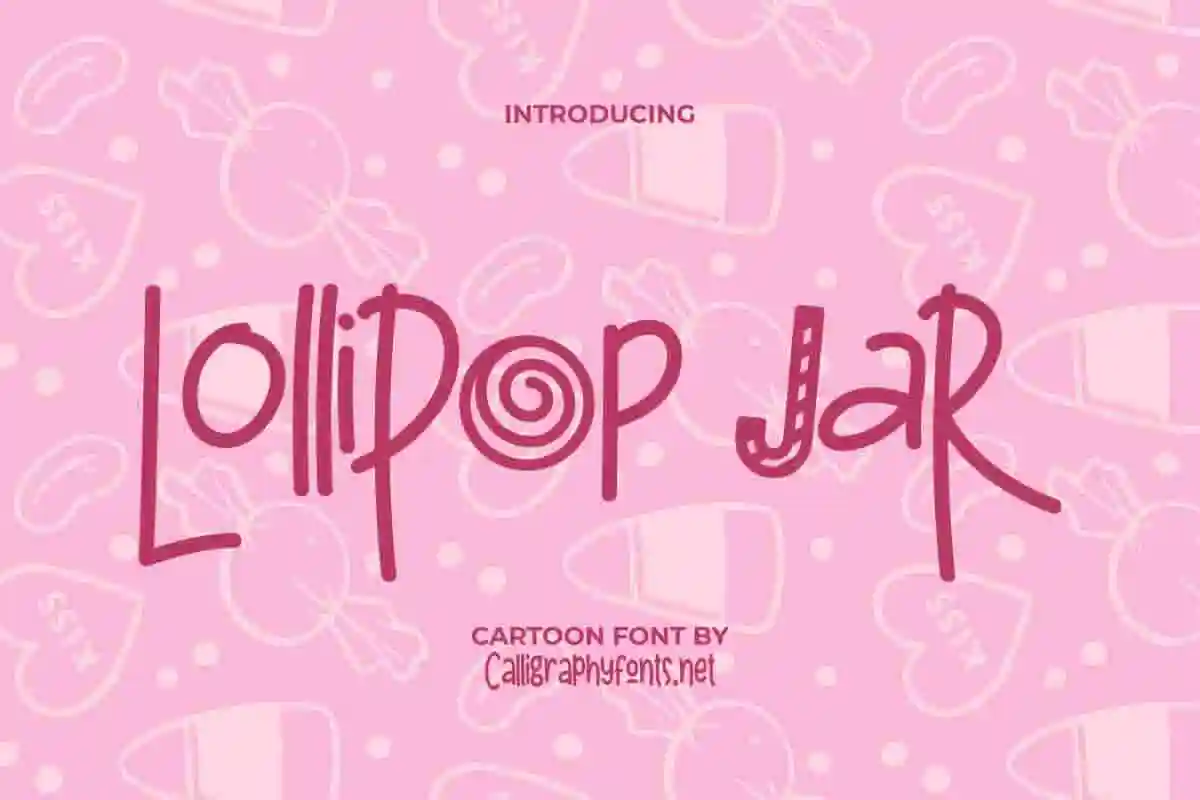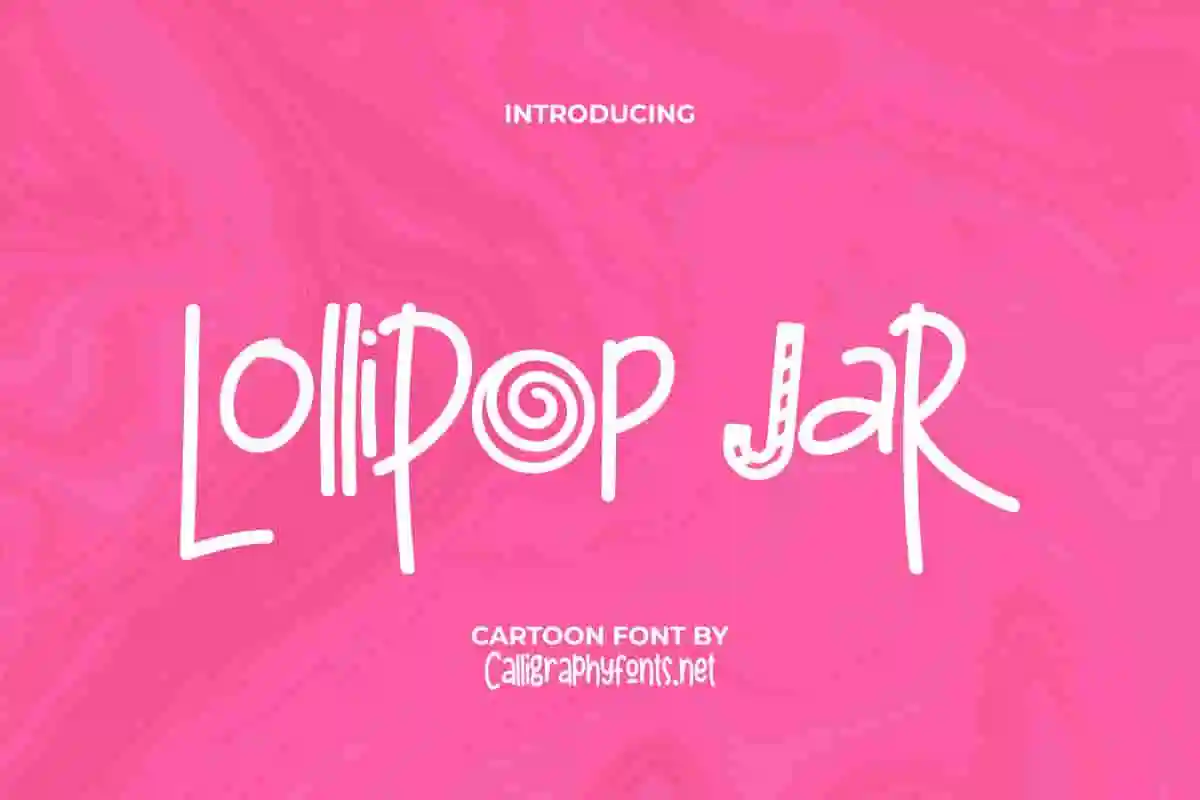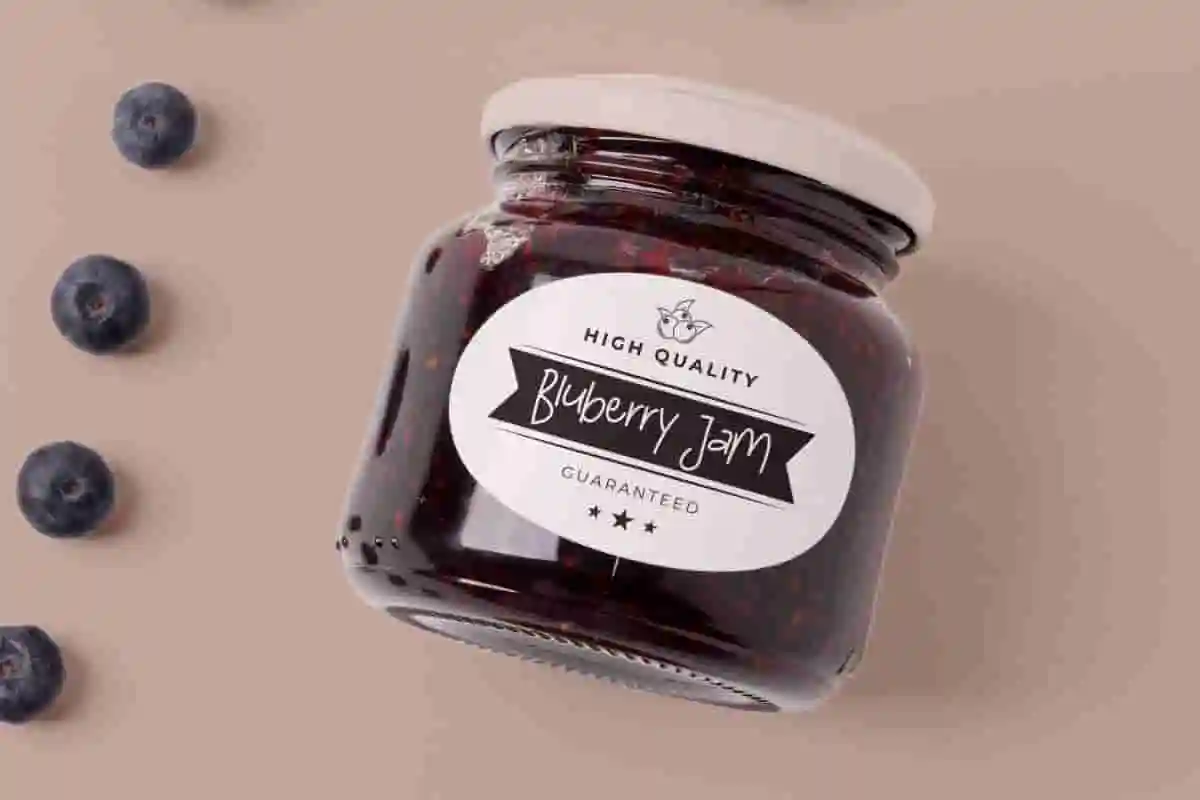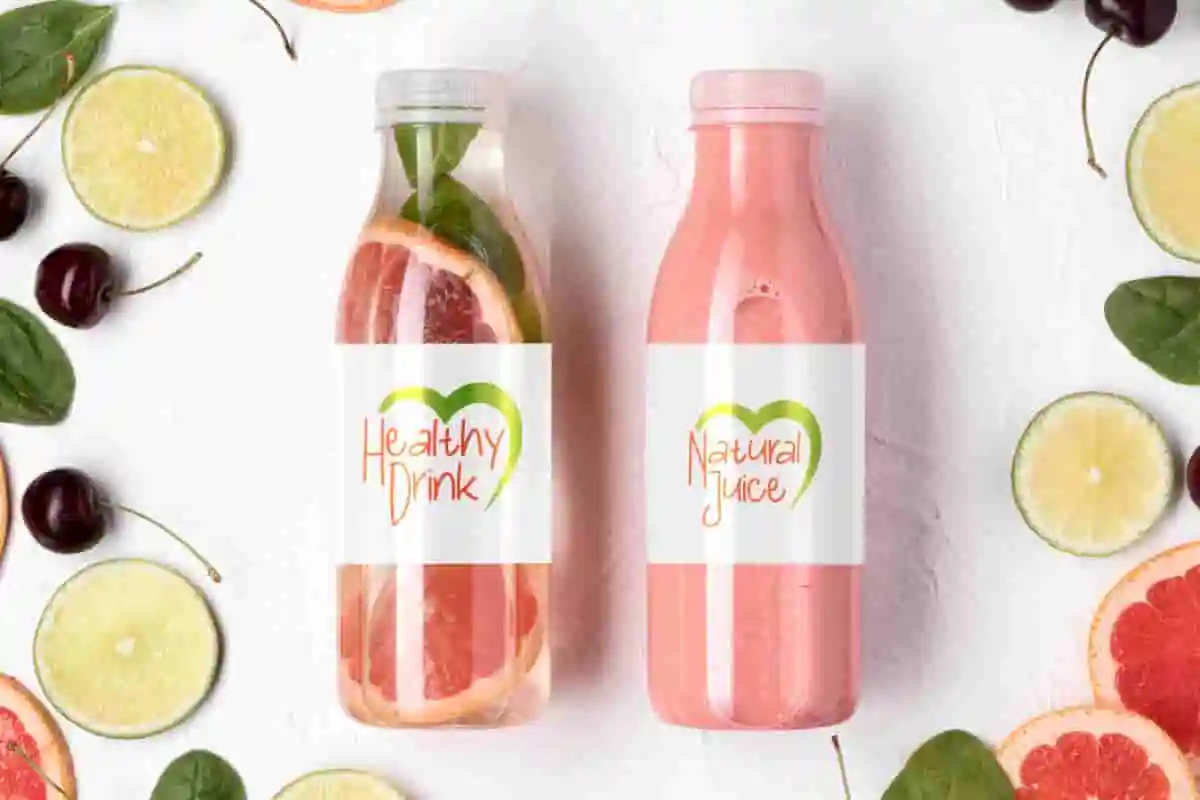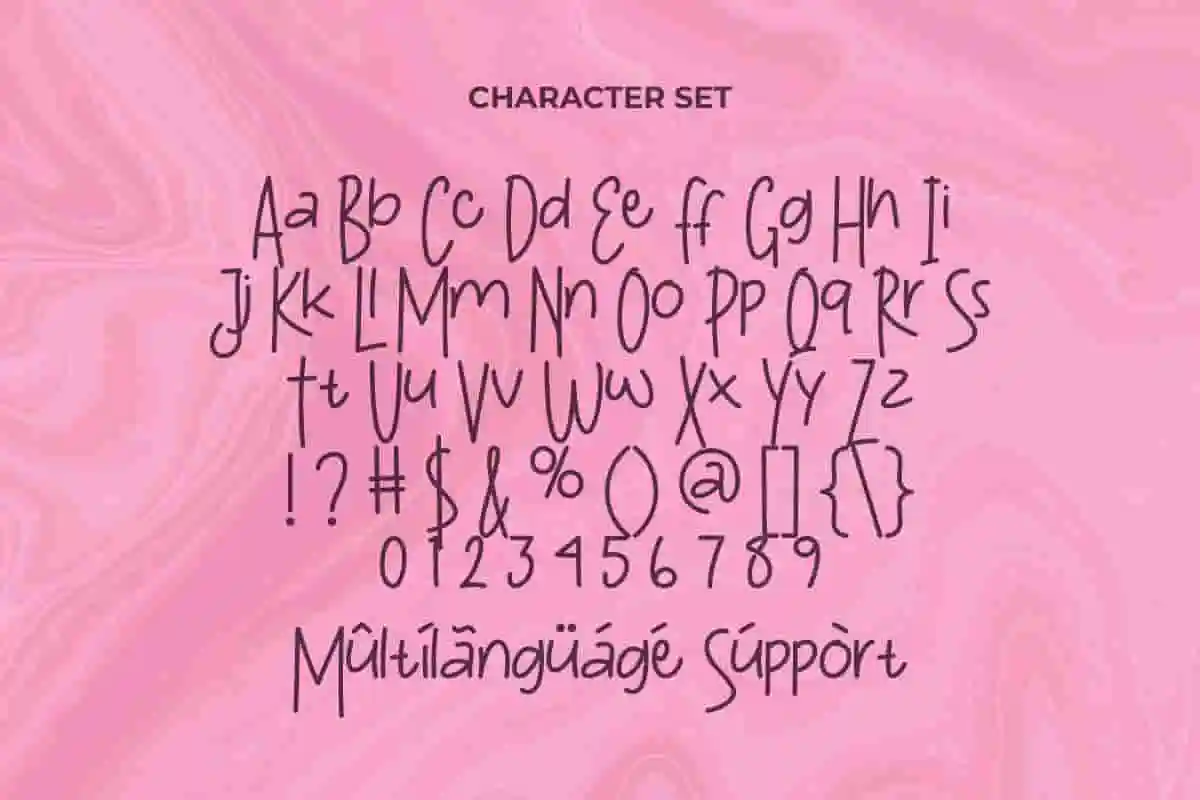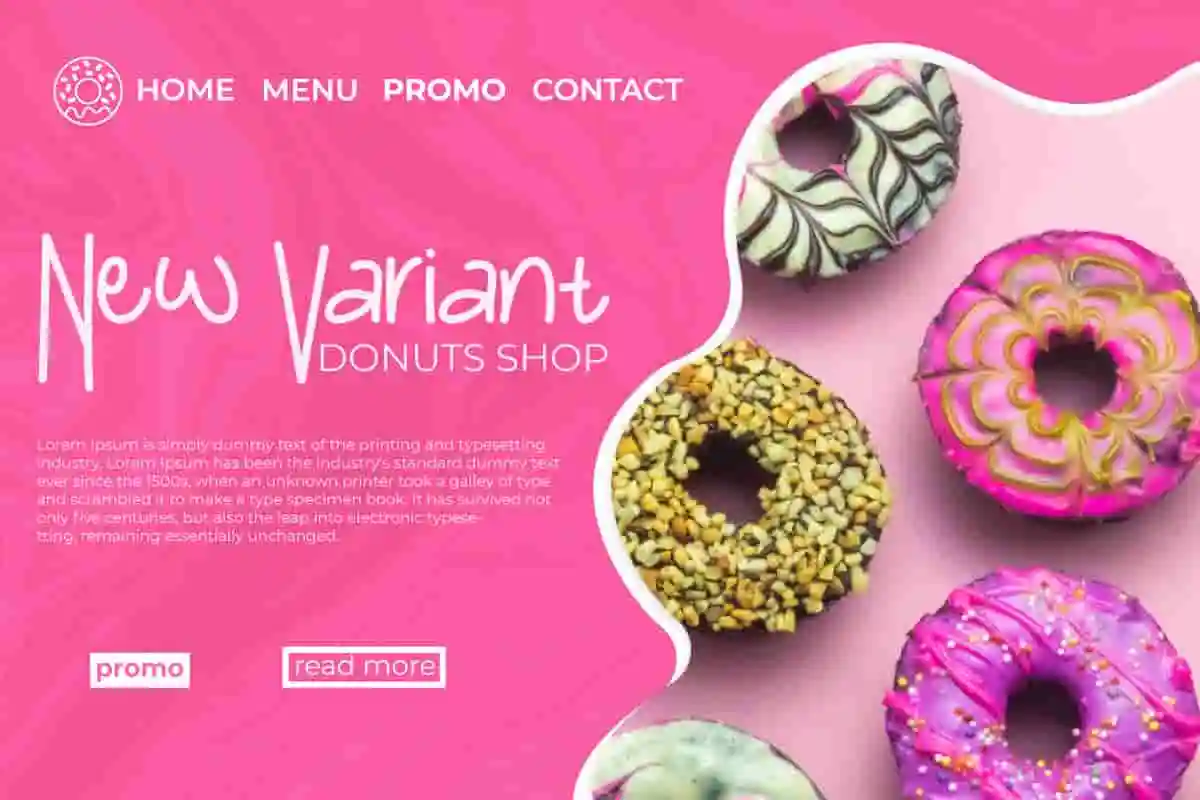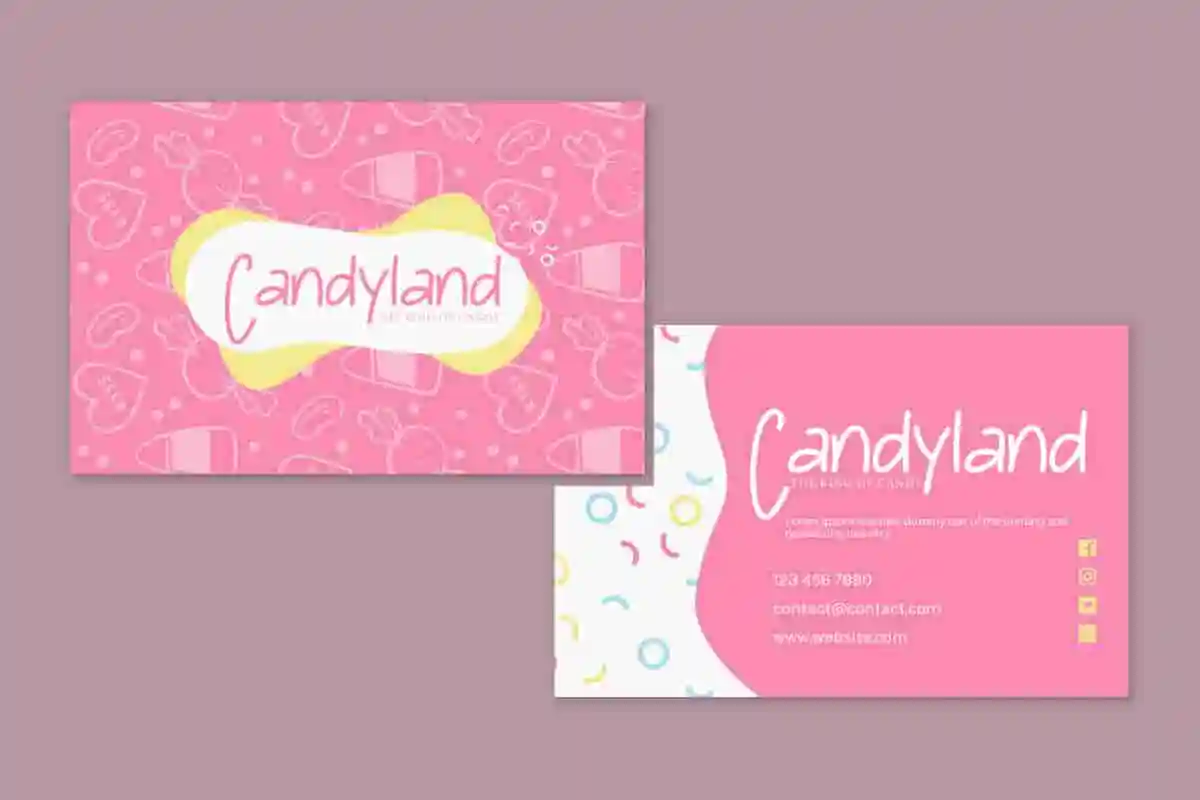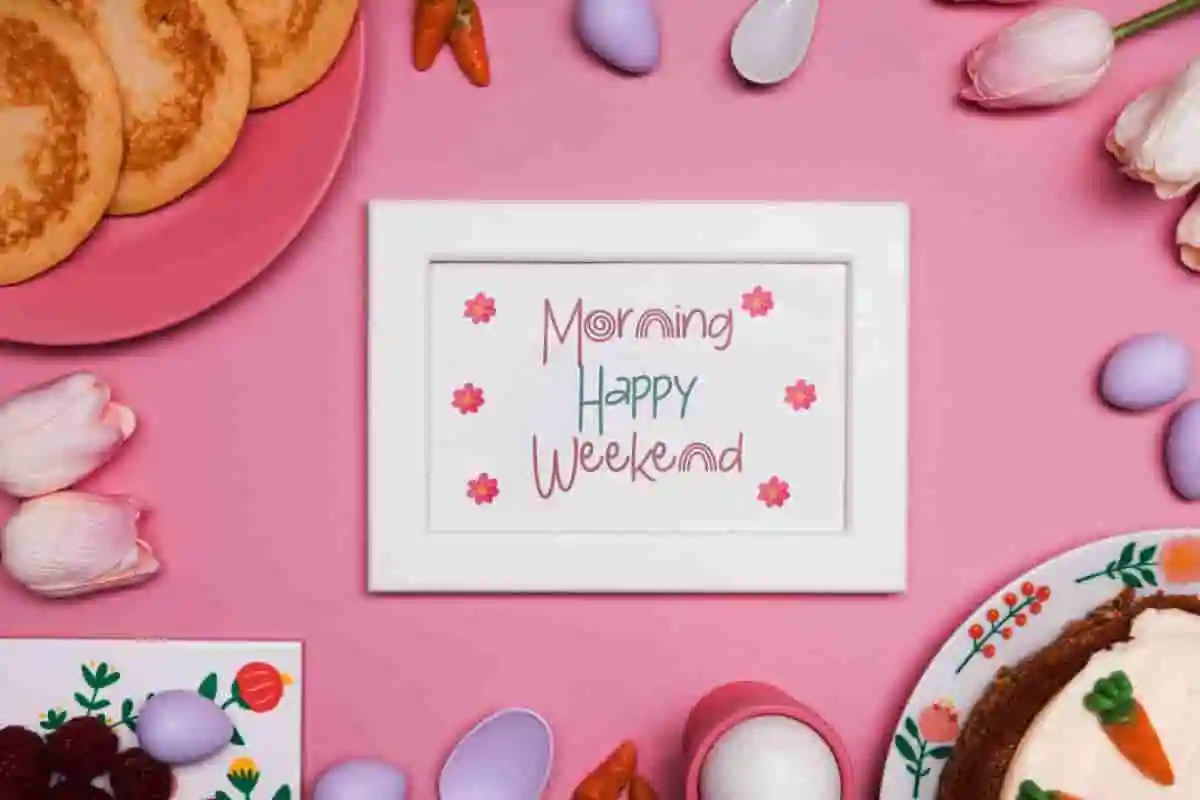
Lollipop Jar Decorative Font
Lollipop Jar Font is sweeties decorative font by CalligraphyFonts.net. It has girly characters that will be awesome for food or snack brands, party, comic, festival etc.
Lollipop Jar Font is a Decorative Display font inspired by candies and other sweet delicious things. The font will be awesome for frame art, products packaging, signage, website and many more!! Lollipop Jar Font will suit many industries and categories related to birthday, kids, school and anything that requires sweet fun girl styles.
Add a sprinkle of sweetness to your designs with Lollipop Jar Decorative Font. This charming and whimsical typeface is bursting with personality, making it perfect for projects that need a cheerful, creative touch. With its rounded edges, playful curves, and delightful style, Lollipop Jar brings joy to every word you create.
Lollipop Jar Decorative Font is more than just typography—it’s an instant mood booster. Every letter is crafted to bring a smile, making it the ideal choice for designers who want to infuse positivity and creativity into their work.